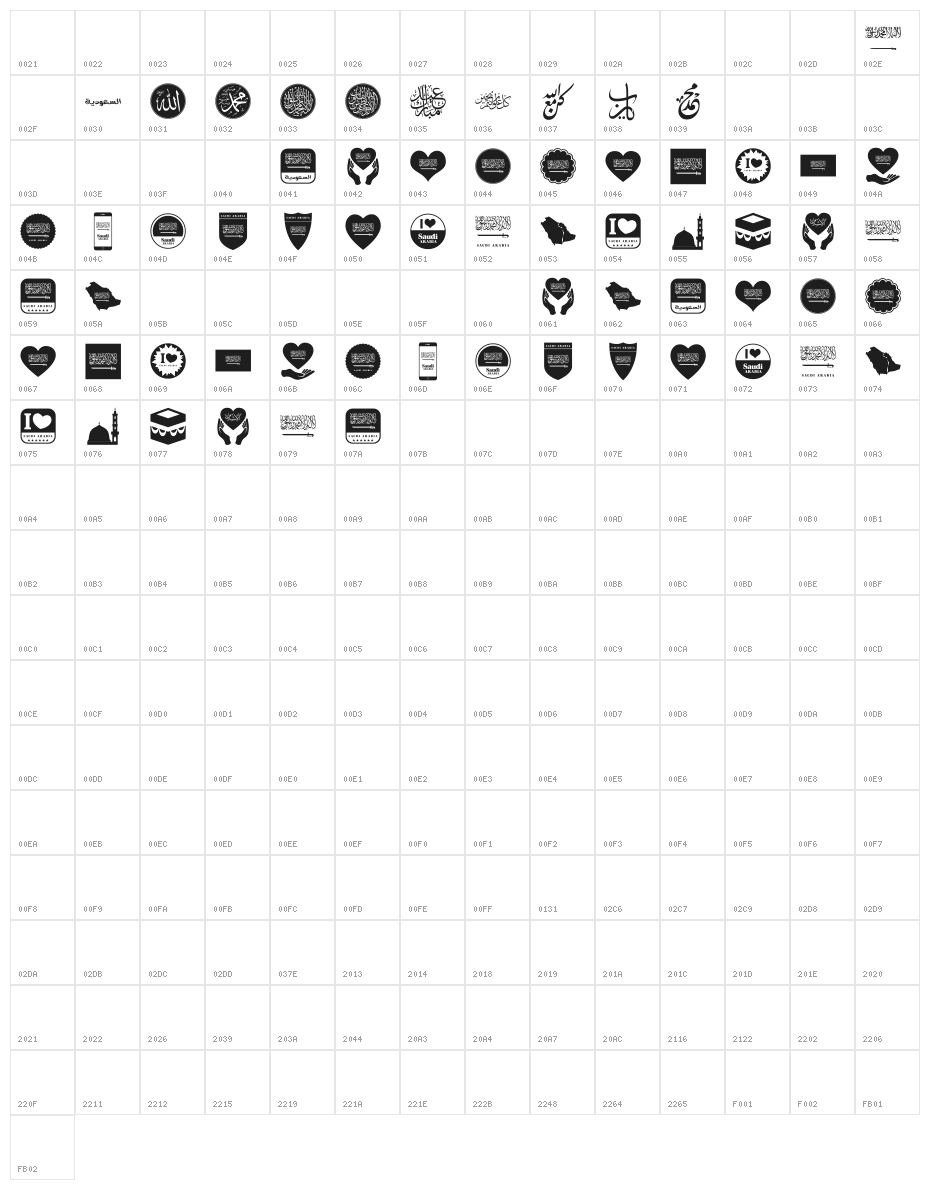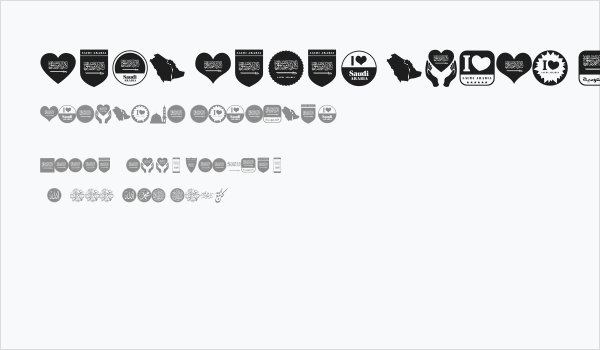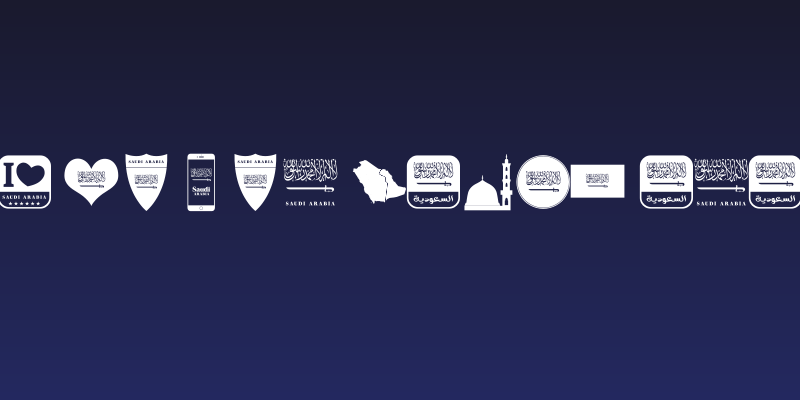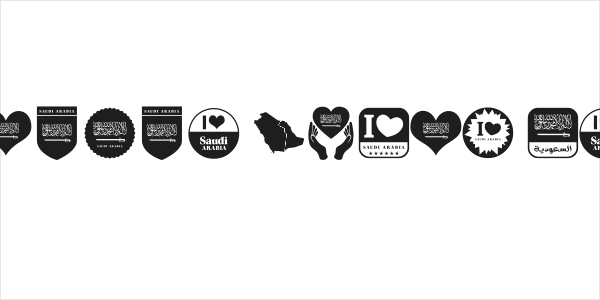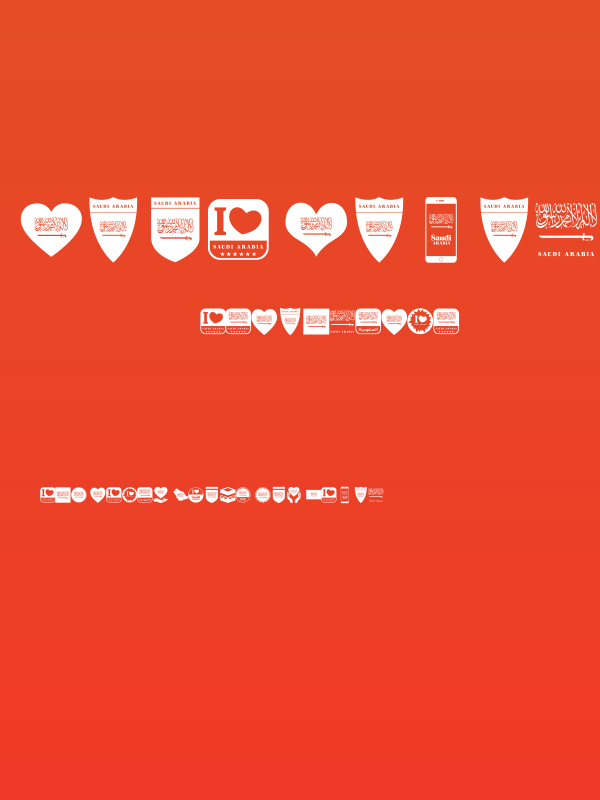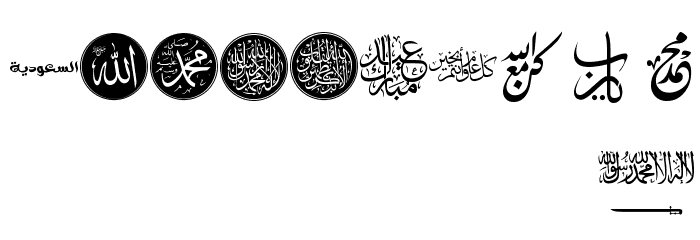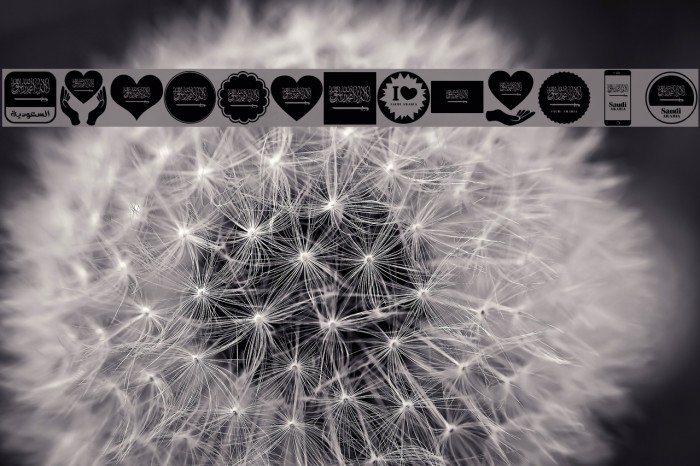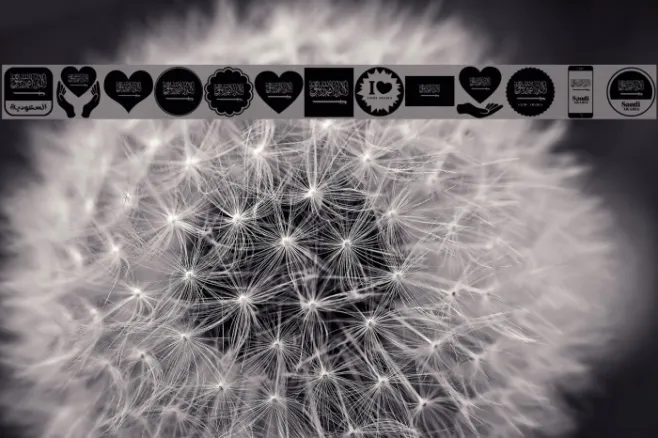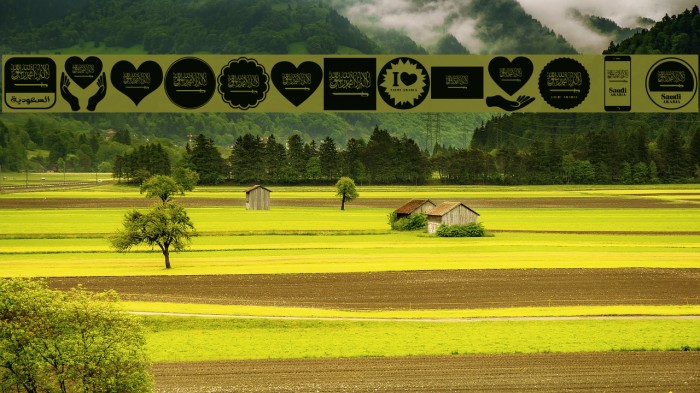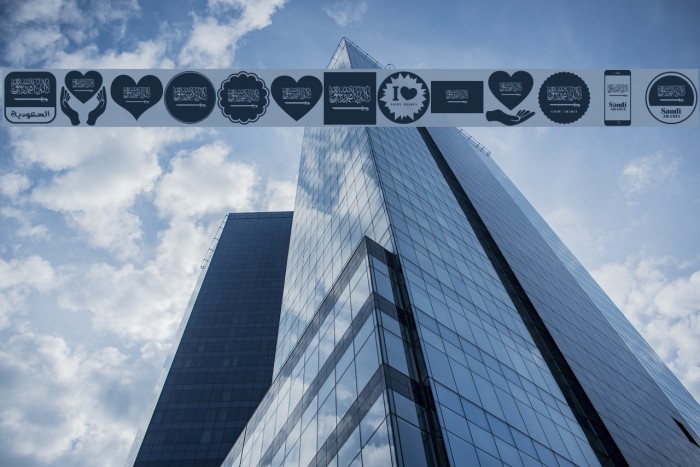
This collection features a variety of decorative and symbolic designs centered around themes related to Saudi Arabia. The designs include heart shapes, shields, and circular emblems, often incorporating Arabic calligraphy and iconic imagery such as mosques and the Kaaba. The style is bold and graphic, with a strong emphasis on cultural and national pride. The use of black and white enhances the contrast and visibility of the intricate details within each design.
| Use Case | Logos, Posters, Cultural Merchandise |
| Proposed Projects | Ideal for cultural events, national celebrations, promotional materials, and souvenirs related to Saudi Arabia. |